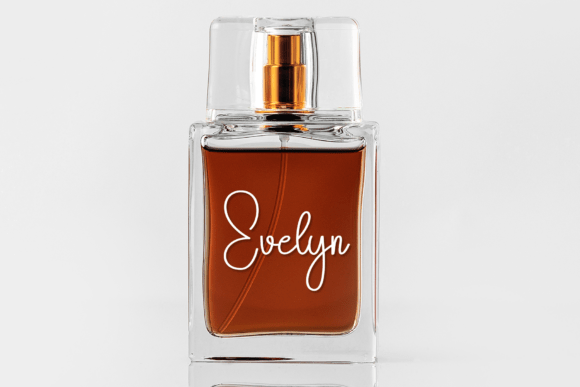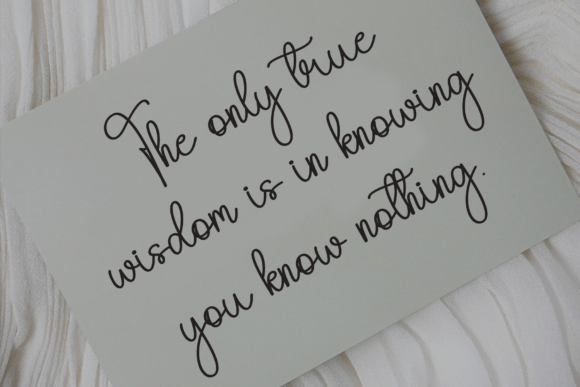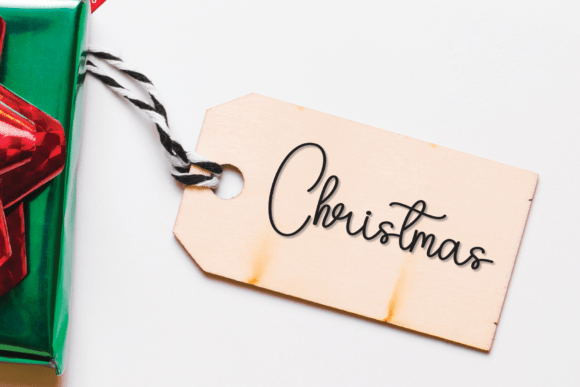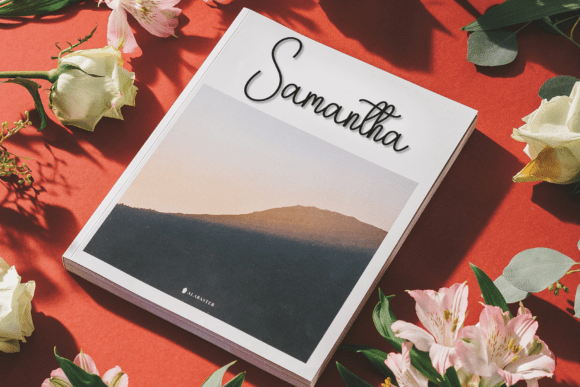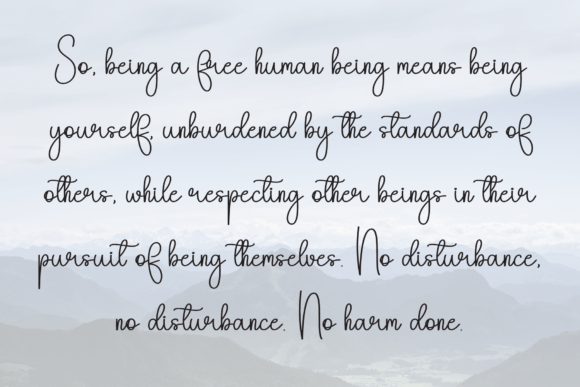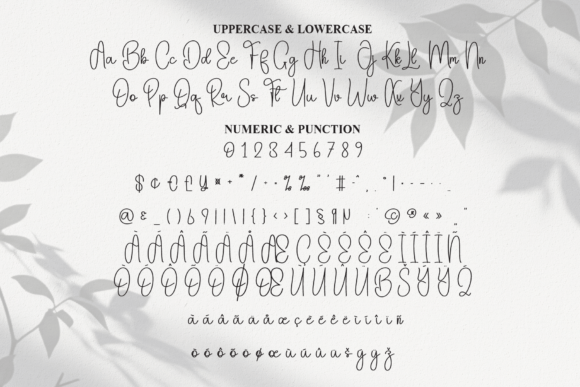
The Achive Font: Elevating Designs with Elegance and Sophistication
I still remember the design project that led me to discover the Achive font. I was working on a luxury brand’s invitation suite, and my client requested a font that exuded elegance and refinement. After hours of scouring font libraries, I stumbled upon Achive, and it instantly captured the essence of what I was looking for. With its stylish script letterforms, fluid curves, and polished details, Achive added a touch of sophistication to the design that exceeded my client’s expectations.
Achive Font: A Comprehensive Review
Achive is a stunning script font that embodies the perfect blend of traditional calligraphy and modern charm. Its beautiful, hand-drawn letterforms make it an excellent choice for designers, crafters, and creative hobbyists looking to elevate their projects.
What I Love About Achive ✨
- ✅ Elegant and refined letterforms that add a touch of sophistication to any design
- ✅ Fluid curves and carefully crafted strokes that mimic hand-drawn calligraphy
- ✅ Versatile and adaptable, suitable for various design projects, from logos to social media graphics
- ✅ Polished details that deliver a high-end look and feel
While Achive is an exceptional font, there are a few minor quirks to be aware of:
- 🤔 Limited use of uppercase letters, which may require creative workarounds for certain designs
- ⚠️ May not be suitable for body text or lengthy content due to its script nature
The Story Behind Achive
Achive was designed with the intention of capturing the essence of hand-drawn calligraphy with a modern twist. The designer aimed to create a font that would be both elegant and versatile, suitable for a wide range of design projects. By combining traditional calligraphy techniques with contemporary design elements, Achive was born – a font that embodies the perfect balance of sophistication and charm.
| What type of designs is Achive best suited for? | Achive is ideal for logos, invitations, packaging, and social media graphics, where a touch of elegance and sophistication is desired. |
| Can I use Achive for body text or lengthy content? | While Achive is a beautiful font, it’s not recommended for body text or lengthy content due to its script nature. It’s best used for headlines, titles, or short paragraphs. |
| Is Achive a versatile font? | Yes, Achive is a versatile font that can be used in various design projects, from formal to informal, and can be paired with a range of other fonts to create a unique look. |